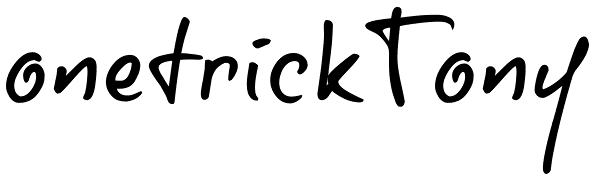
onetrickTony
This handwritten font is the result of trying to write in a different way to what I'm used to: sometimes taking a left turn when going straight was the more obvious way. Or the other way around. The result was quite readable and it turned out that I...